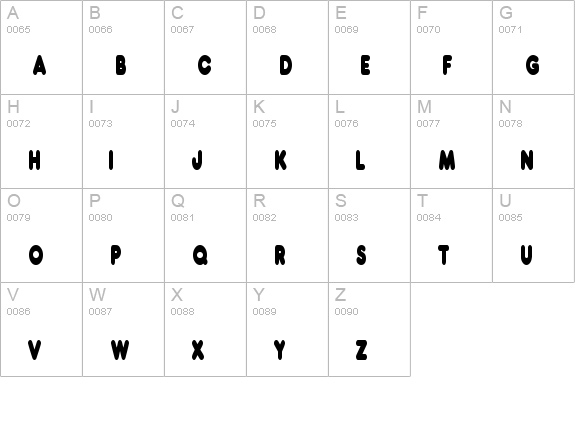
NeonCondensed Font Details
NeonCondensed font is a sleek and modern typeface that exudes a futuristic vibe with its clean lines and bold design. Perfect for creating eye-catching headlines, logos, and posters, this font is sure to make a statement. Its condensed style allows for efficient use of space while maintaining readability. What's even better is that NeonCondensed font is available for free! You can download it easily at FontsMarket.com and start using it in your projects right away. Don't miss out on this fantastic opportunity to add a touch of neon glamour to your designs without breaking the bank.